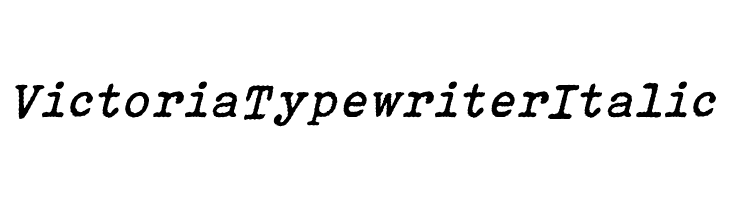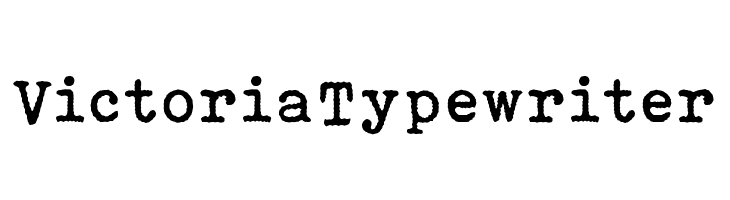
A vintage typewriter-inspired font with a monospaced, mechanical look.
A bold, monospaced typewriter-style font with a vintage feel.
A vintage, monospaced italic font with a classic typewriter feel.